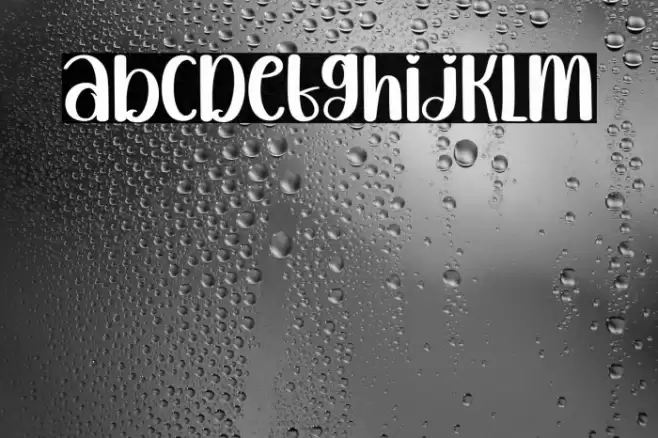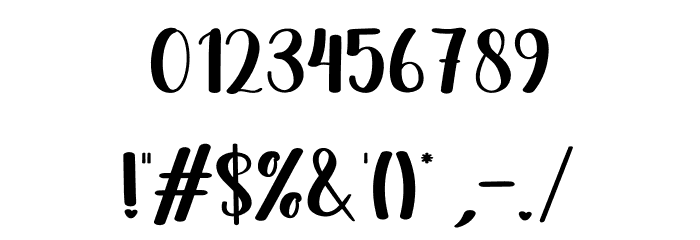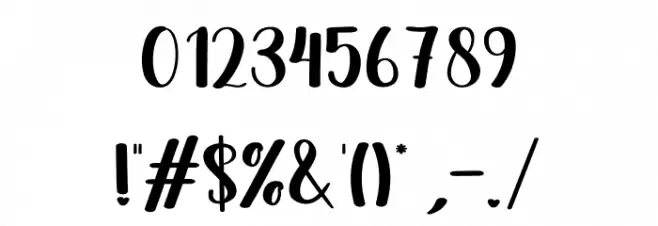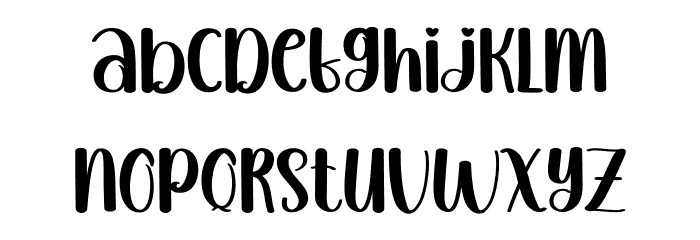
Juice Mango Font
Juice Mango Description
This font features a playful and bold design with a handwritten style that exudes a sense of fun and creativity. The characters are rounded and have a consistent thickness, giving them a smooth and fluid appearance. The uppercase and lowercase letters maintain a cohesive look, with the lowercase letters exhibiting a slightly more whimsical flair. The numbers and special characters are designed to match the overall style, ensuring a harmonious appearance across all text. This font is perfect for projects that require a friendly and approachable aesthetic.
A playful, bold handwritten font with a smooth, rounded style from Handwritten fonts.
- Proposed Projects: Ideal for children's books, playful branding, greeting cards, and creative posters.
- Overall Style: Playful